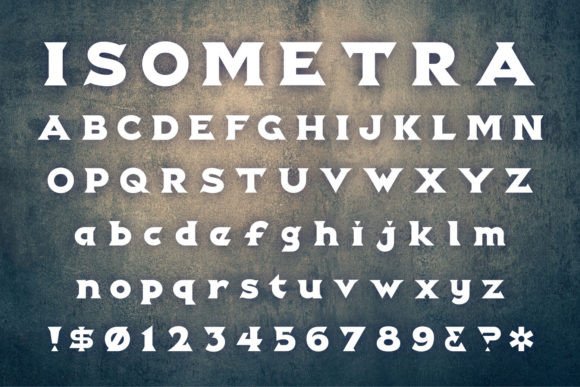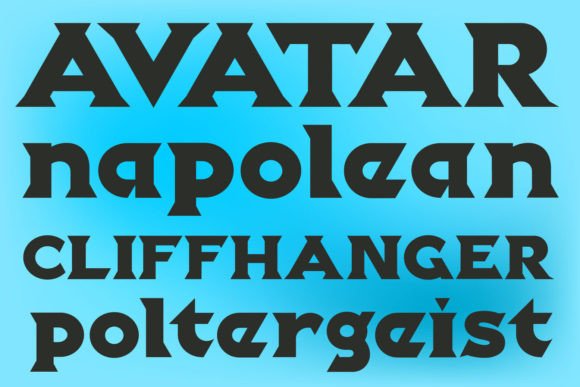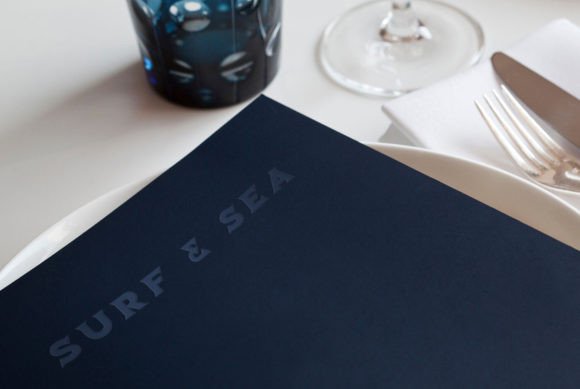
About Isometra Font
Isometra is a heavy, slab-serif typeface. It is based on an isometric grid. It’s suitable for titles, logos, and branding.
Similar to Copperplate, but with a more modern look.
Isometra includes every character you see on a standard keyboard, plus a few alternate characters.